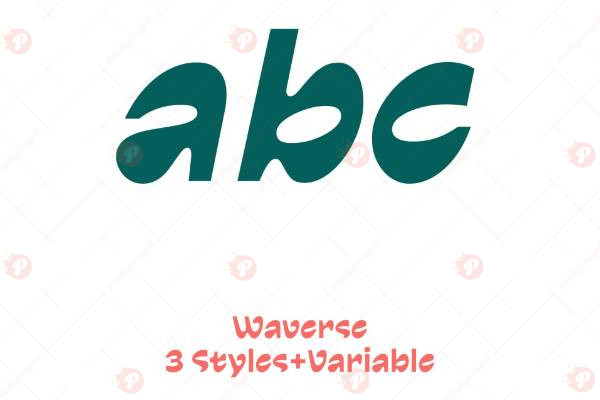
The Waverse Font Free is a modern and futuristic display typeface crafted for cutting-edge designs and creative projects. With its sleek letterforms and bold style, this font is perfect for technology branding, gaming posters, digital artwork, logos, UI/UX design, event graphics, and modern packaging.
Its dynamic and stylish vibe makes it suitable for designers who want to bring a high-tech, innovative, and creative edge to their work. Whether for digital products, branding, or social media graphics, Waverse Font Free ensures your designs look contemporary and impactful.
Typeface: Display / Futuristic / Modern
Style: Bold / Sleek / Creative / Stylish
Perfect for: Tech Branding, Gaming Posters, Logos, UI/UX Design, Modern Packaging, Event Branding, Digital Graphics
Make your designs stand out with the futuristic charm of Waverse Font Free.